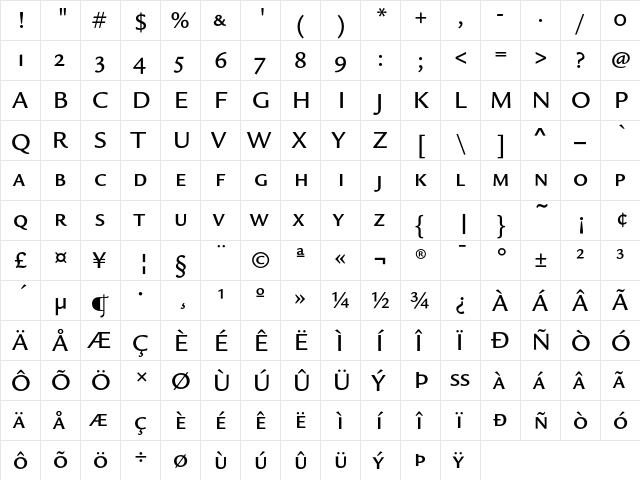
LegacySansEF MediumSC Font Preview
LegacySansEF MediumSC
Design Context for LegacySansEF Typeface
LegacySansEF takes a measured approach to typography — its balanced proportions and neutral character make it a reliable workhorse for both digital and print work.